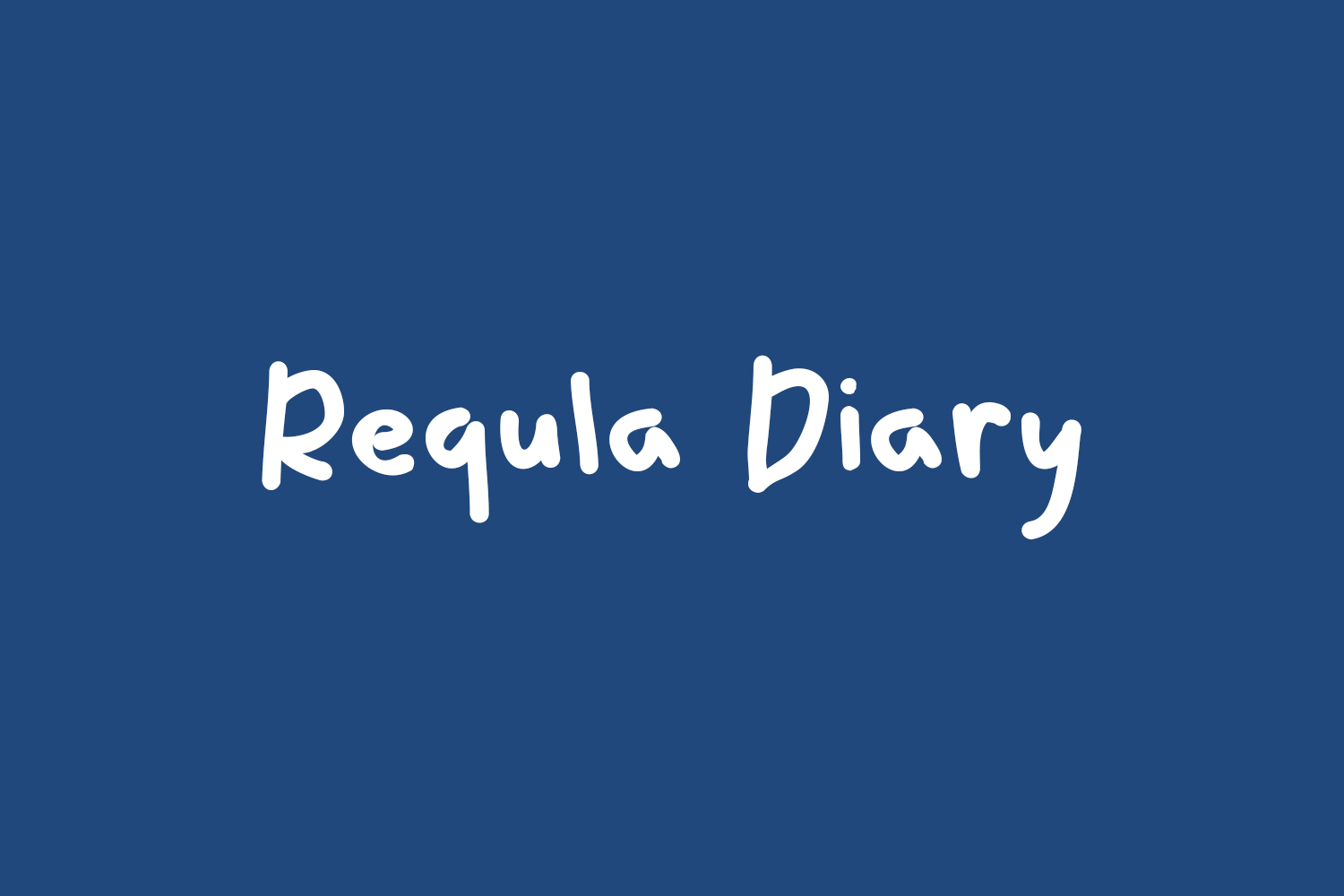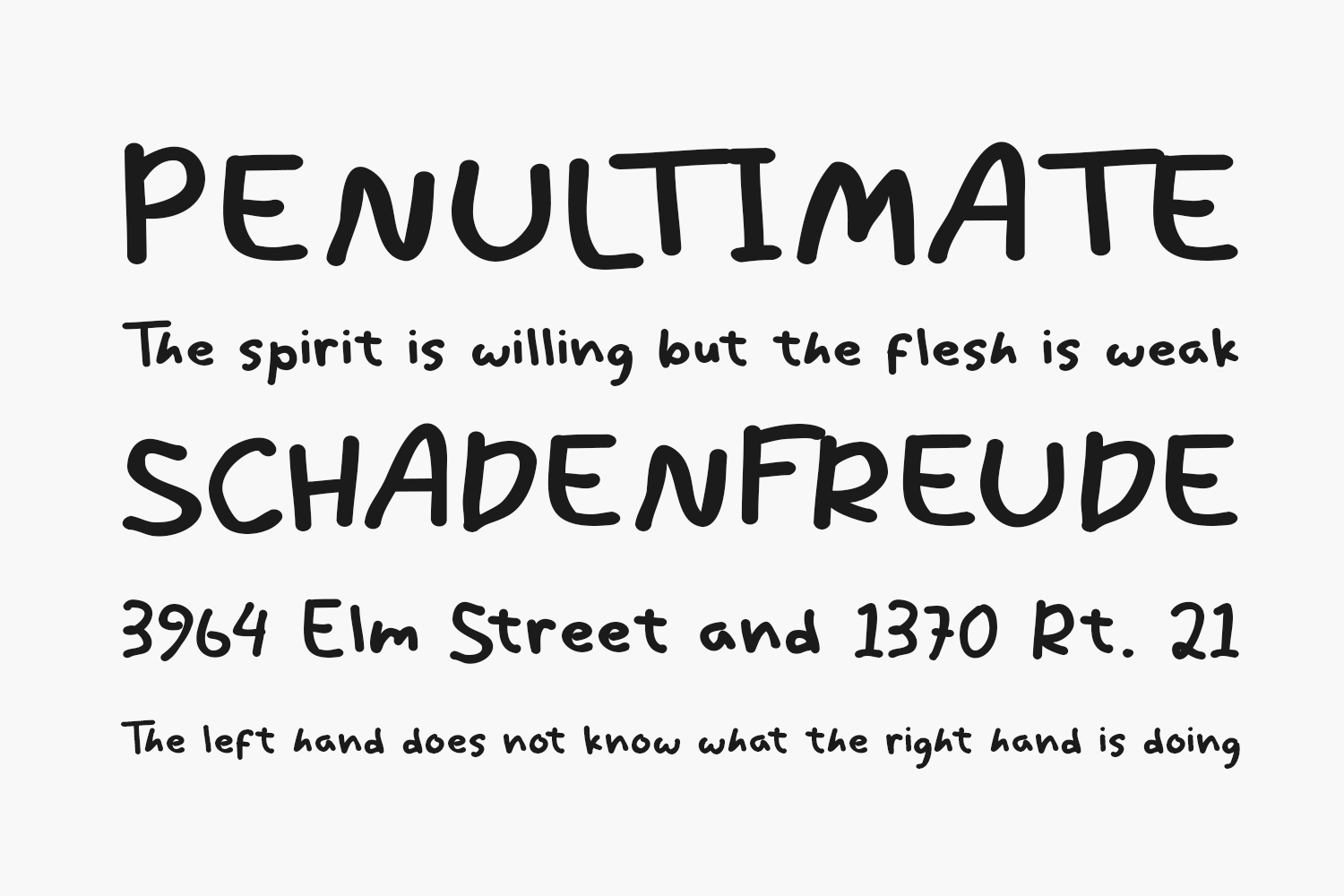
Imagine a world where every stroke of a pen tells a story, where each curve and line captures the essence of creativity and imagination. This is the world of Requla Diary Free Font, a script handwritten typeface that embodies the spirit of artistic expression.
With its flowing, organic lines and playful curves, Requla Diary Free Font captures the essence of free-spirited creativity. It’s the perfect font for designers and artists who want to add a touch of whimsy and personality to their work.